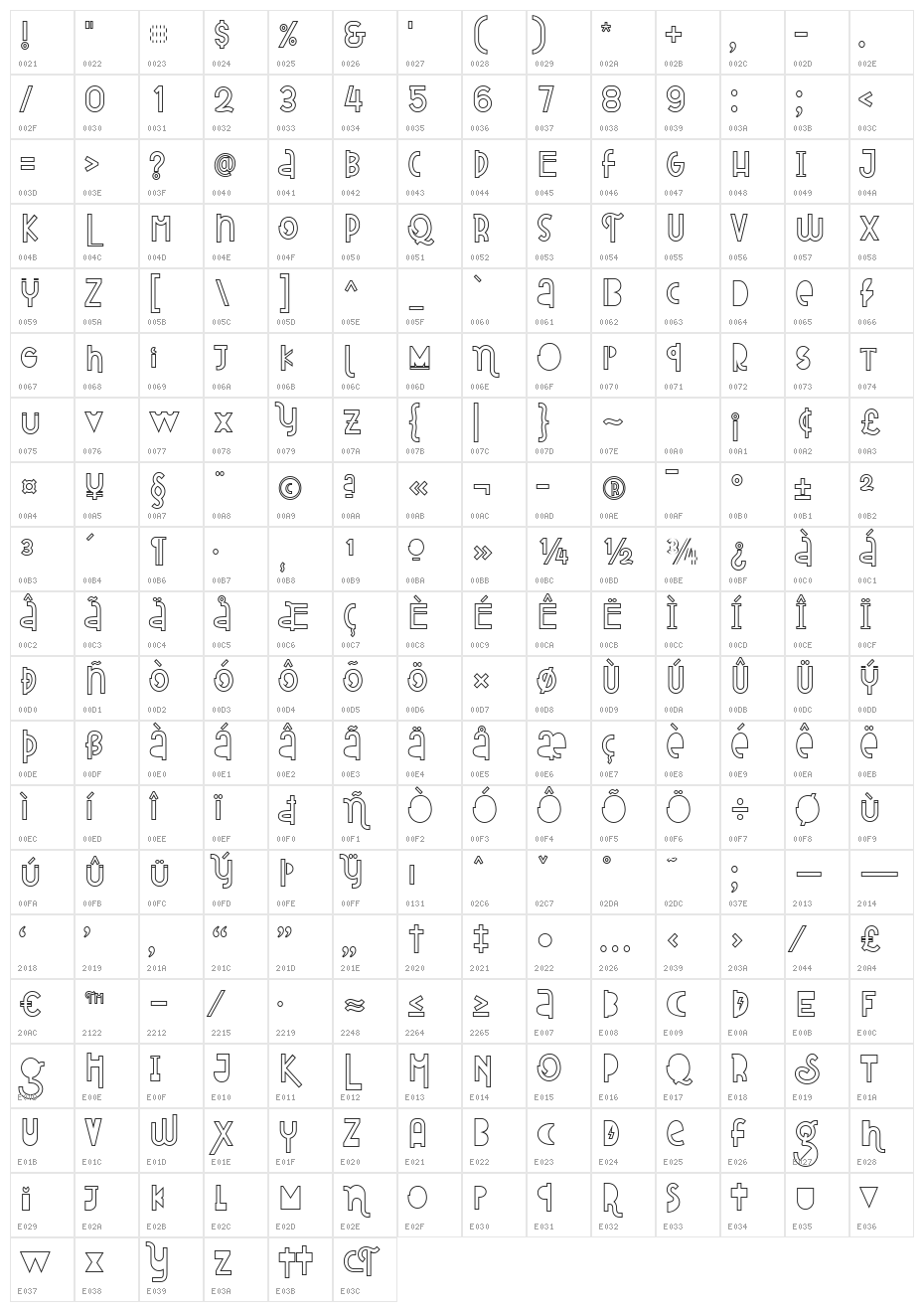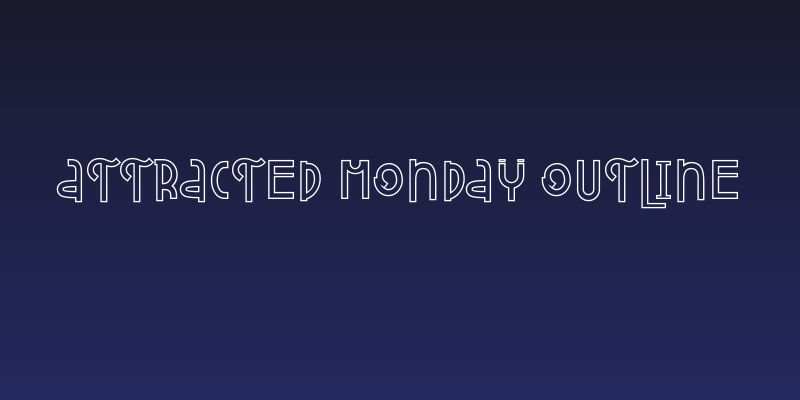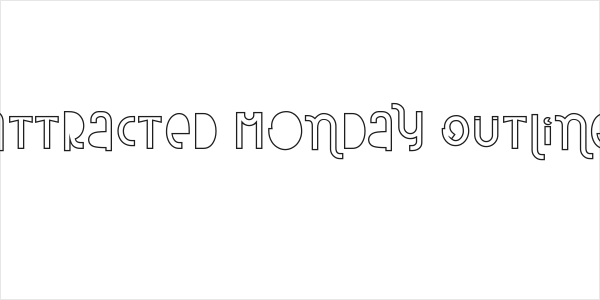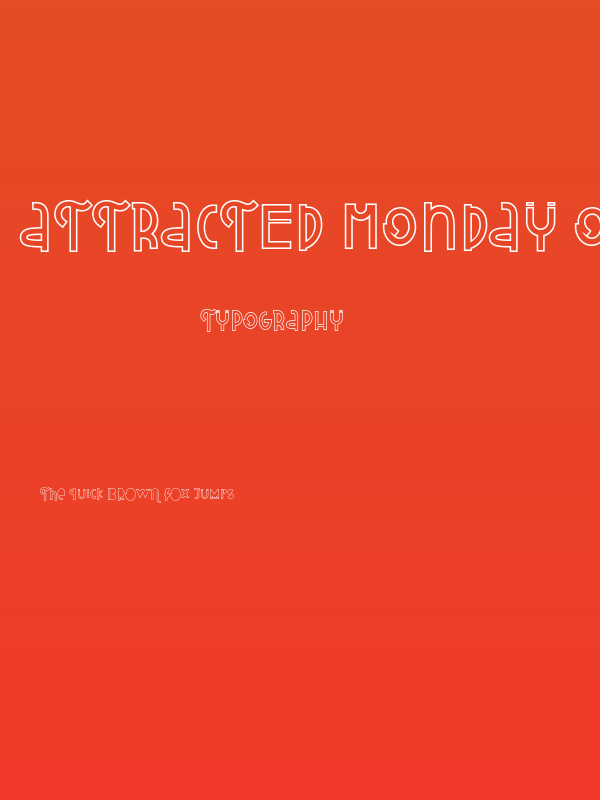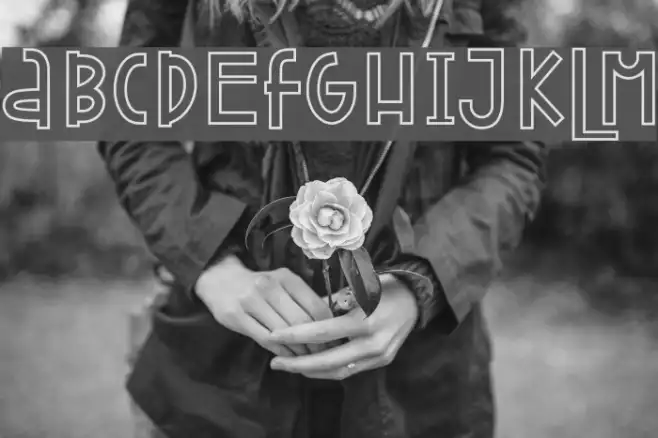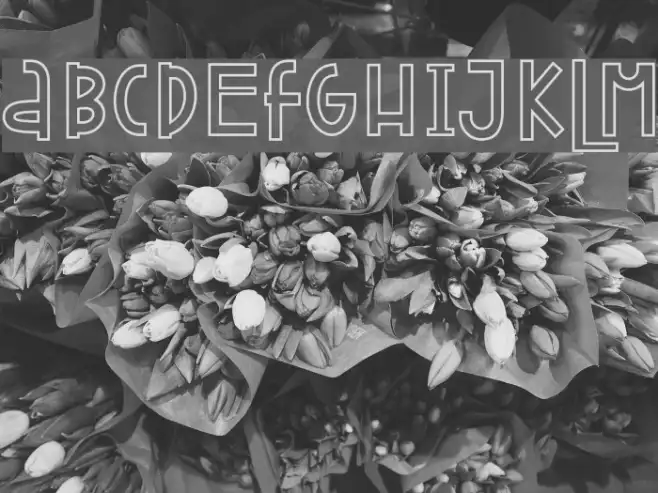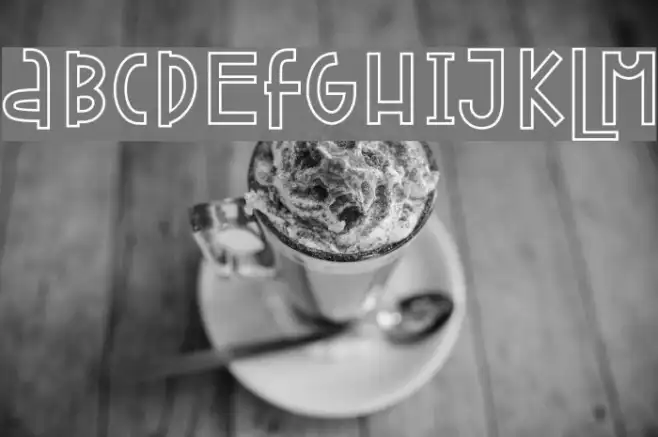
Attracted Monday Outline Font
Attracted Monday Outline Description
This font features a unique and creative outline style that combines geometric shapes with artistic flair. Each character is designed with a distinct outline that gives it a modern and playful appearance. The uppercase and lowercase letters maintain a consistent style, with some characters incorporating unexpected angles and curves that add to the font's charm. The numerals and special characters follow the same design principles, ensuring a cohesive look across all glyphs. This font's outline nature makes it ideal for projects that require a bold and eye-catching typeface.
| Proposed Projects | Ideal for branding, posters, headlines, and creative design projects that require a standout typeface. |